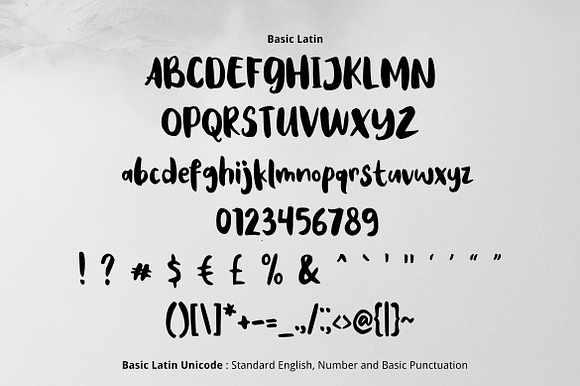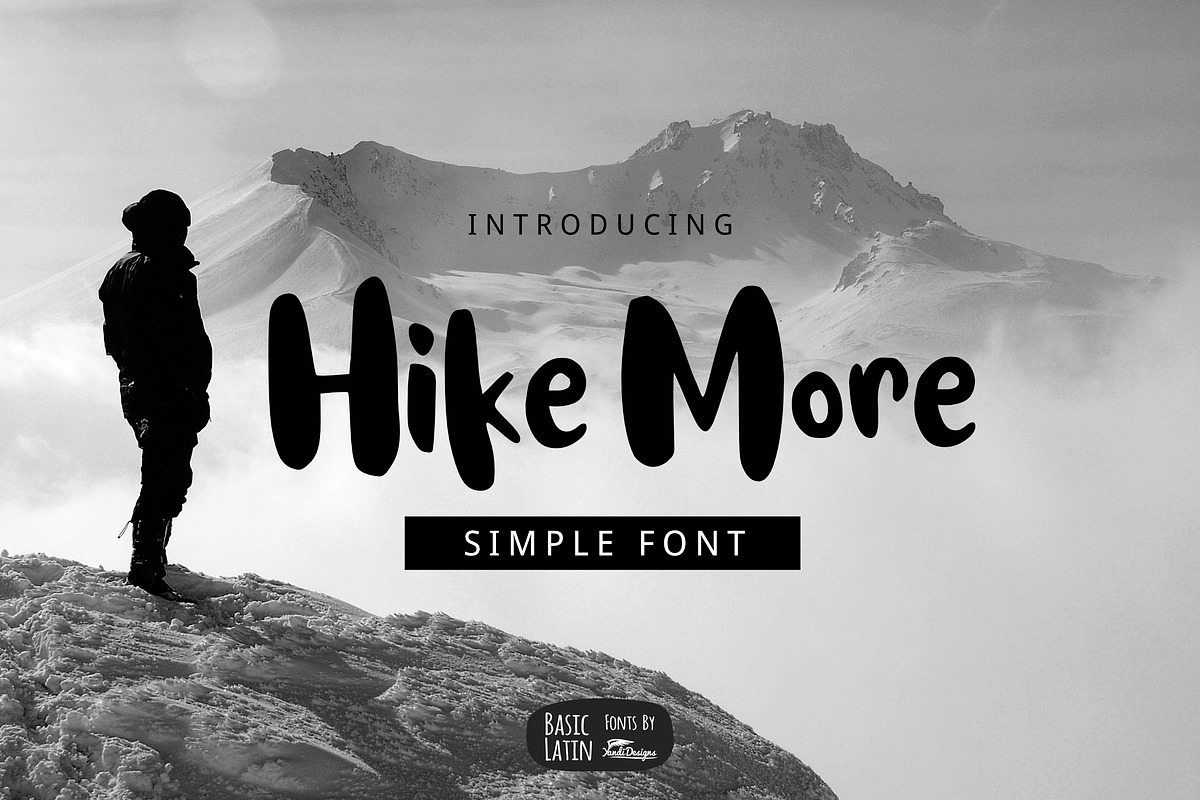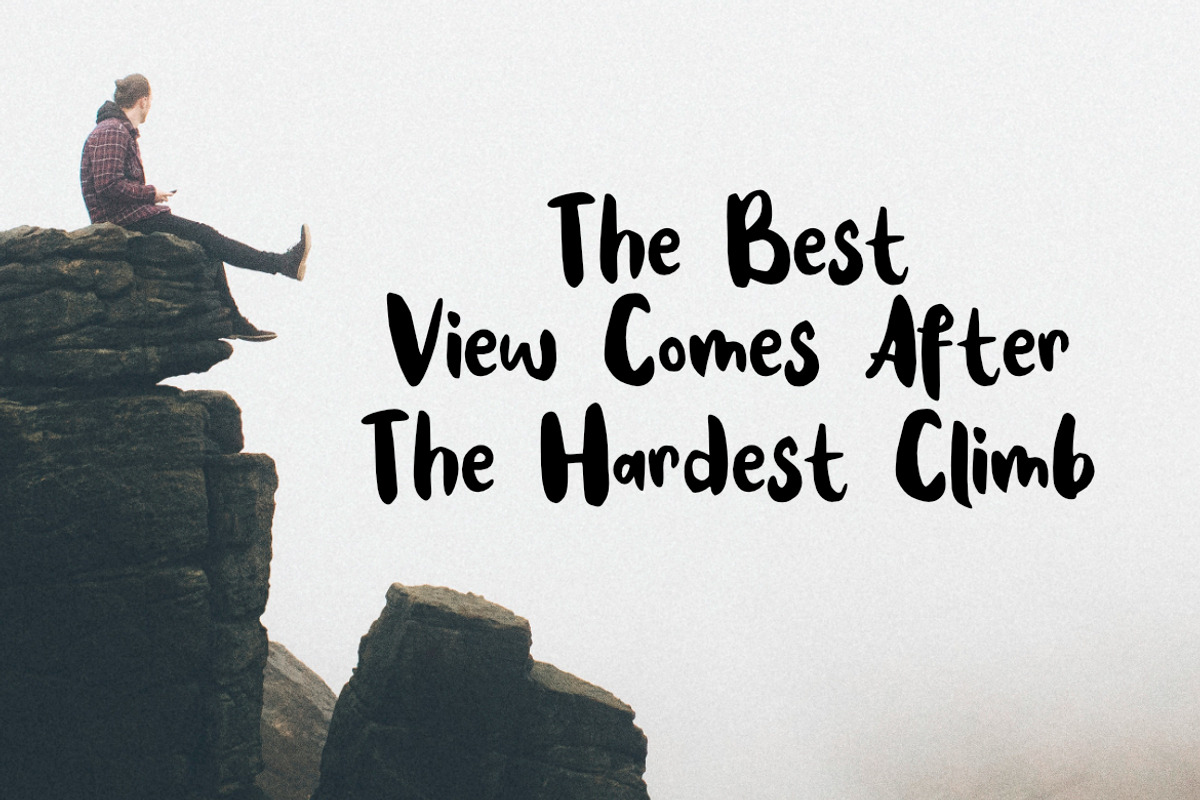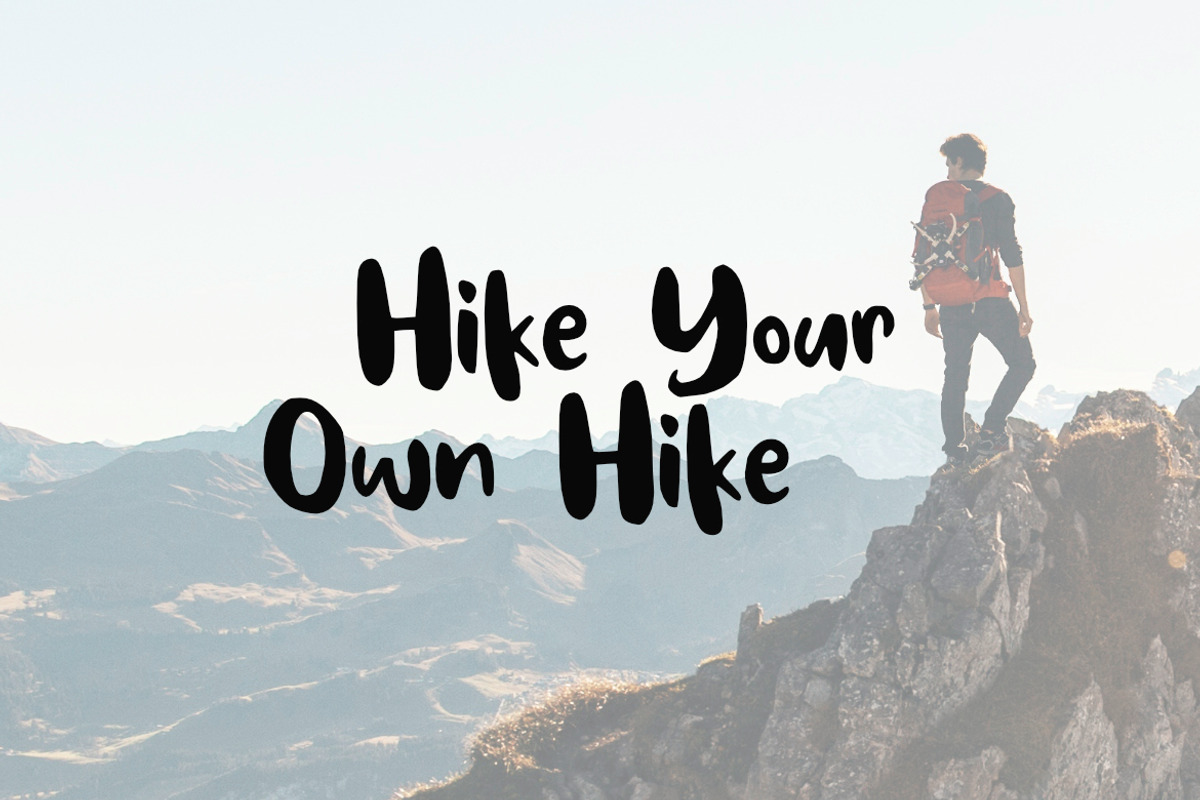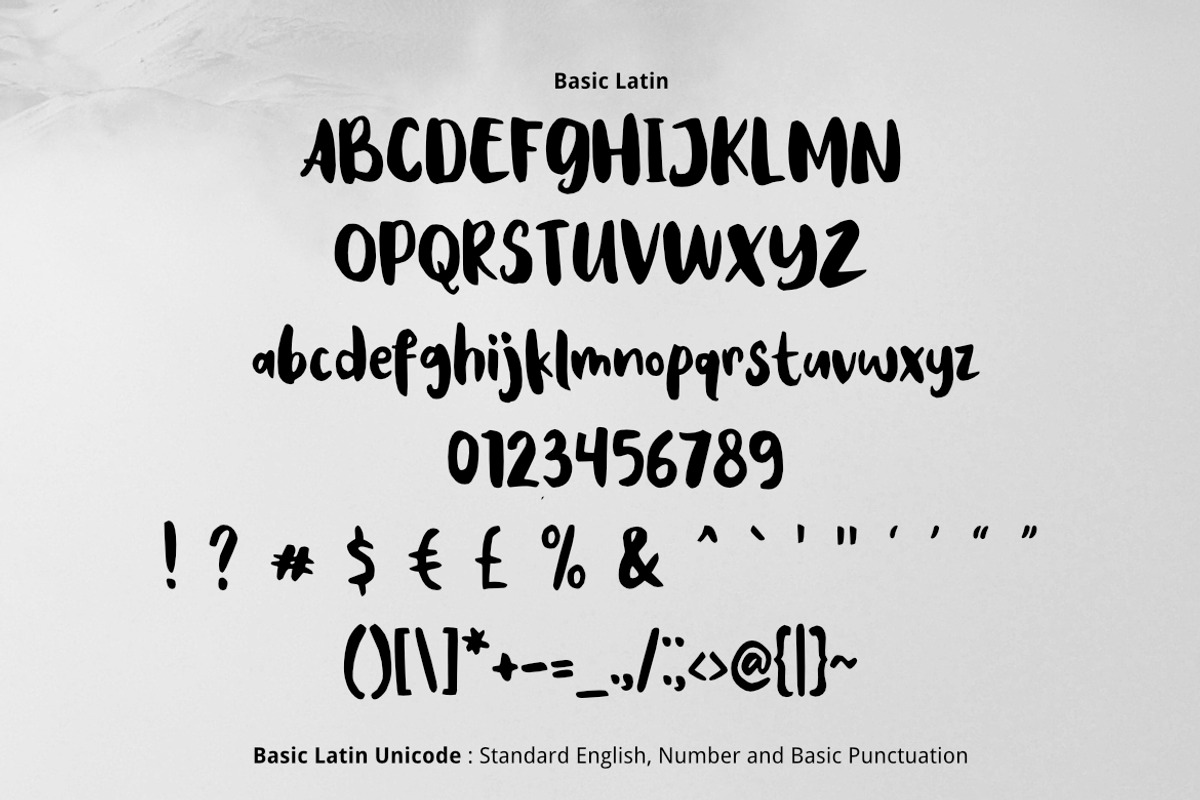
Hike More Font
Hike More font is simple cute multipurpose handmade font , suitable for many project children book, quotes, logo , heading , title etc.
Hike More Font by YandiDesigns fits naturally into Branding, posters, packaging, typography.